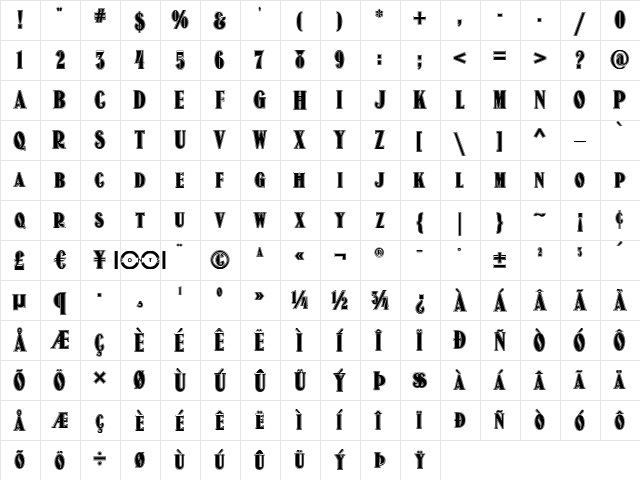
Old Gate Lane NF Regular
Design Context for Old Gate Lane NF Typeface
Old Gate Lane NF is a composed and adaptable typeface that performs quietly and consistently across a wide range of design contexts.